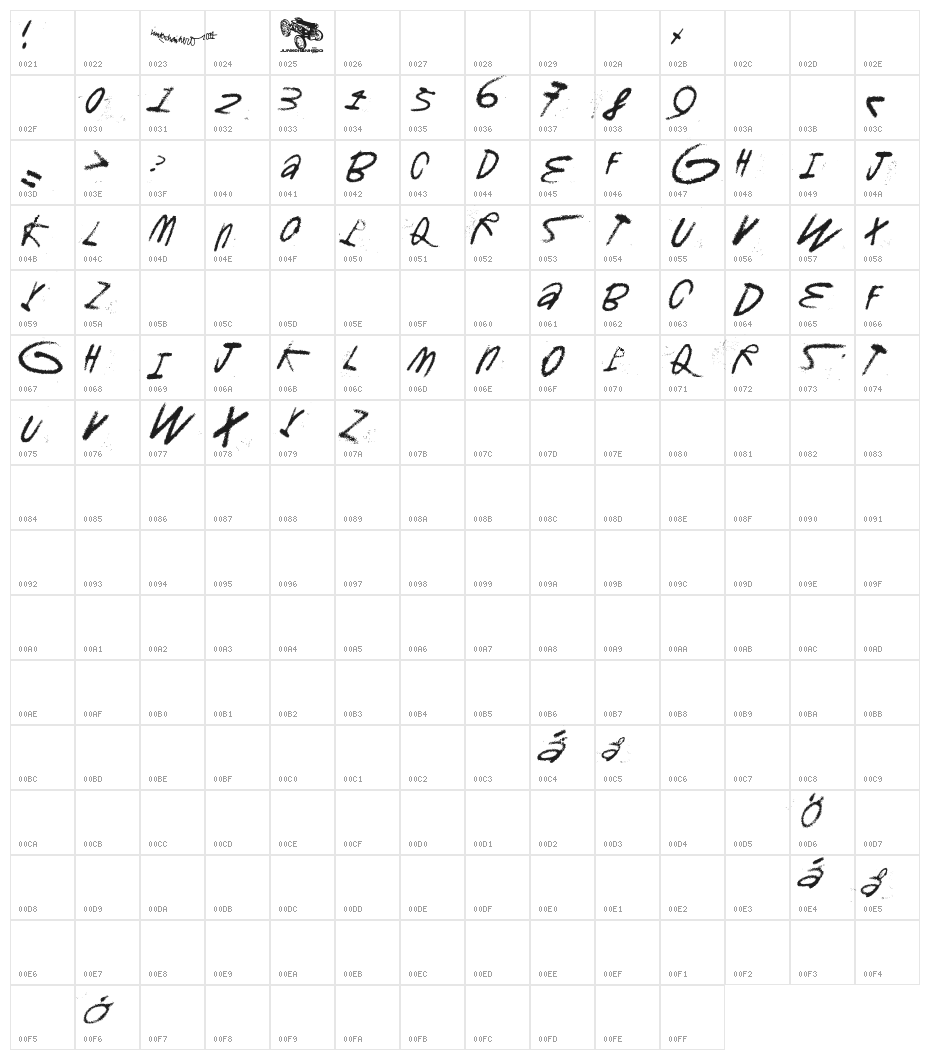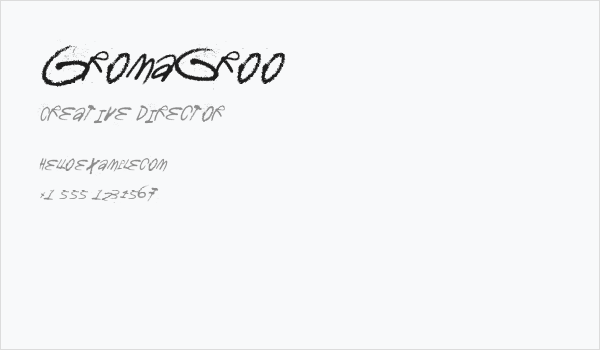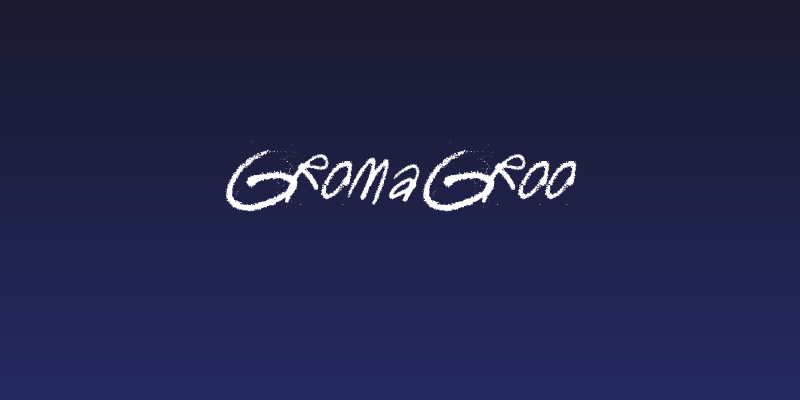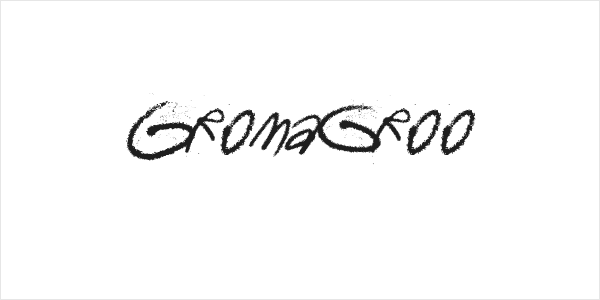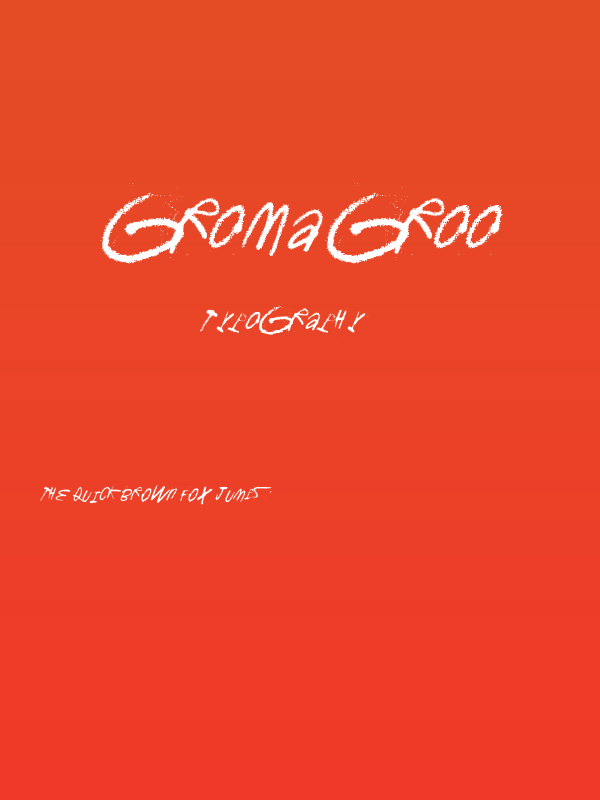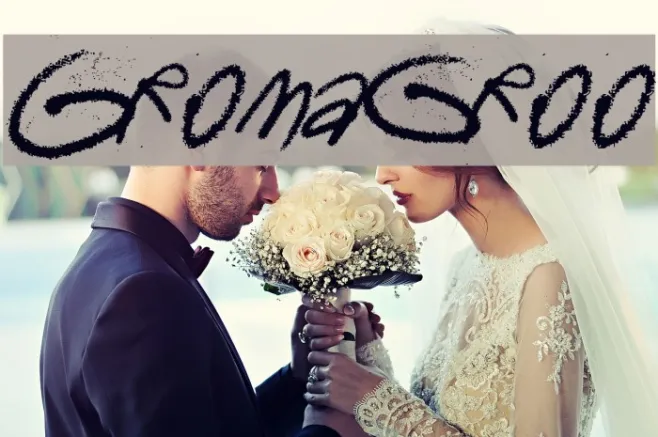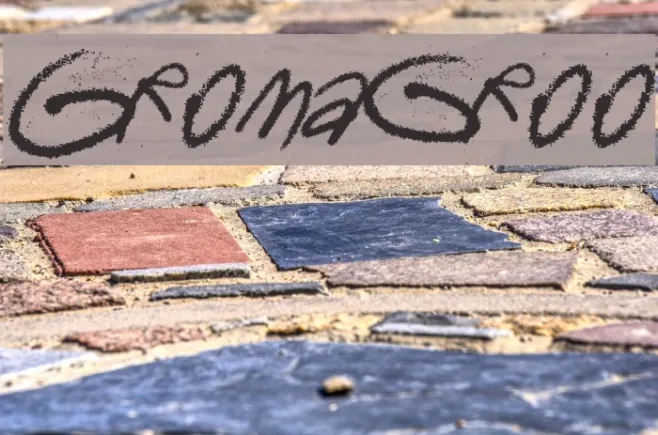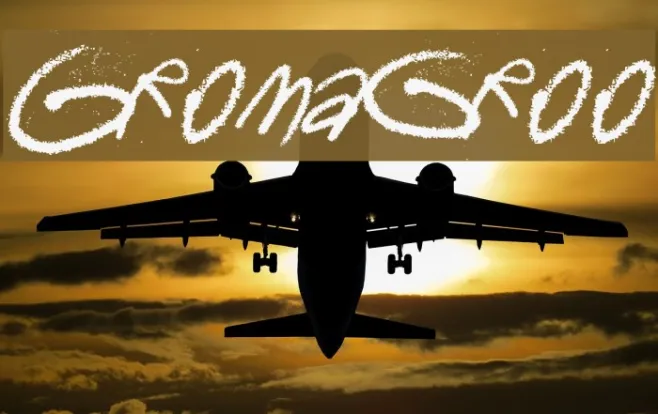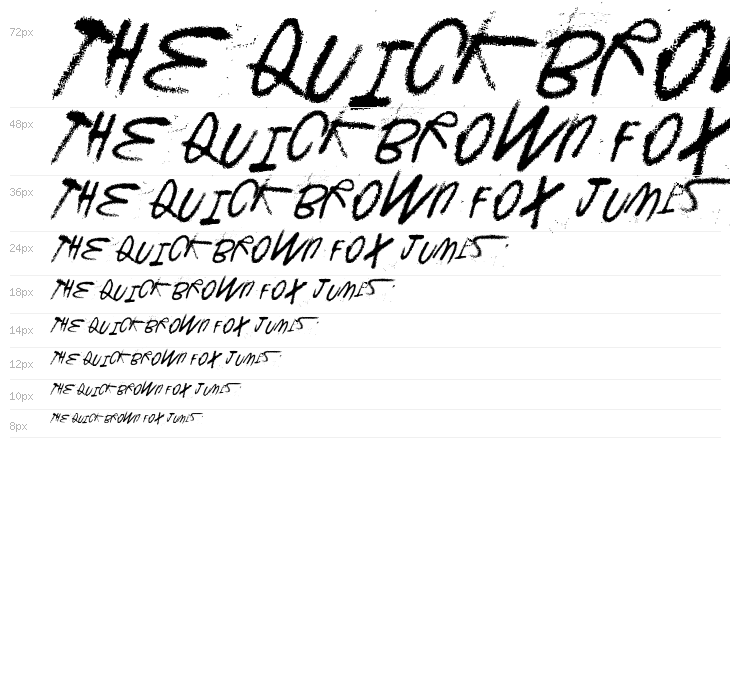
Gromagroo Font
Gromagroo Description
This font features a bold, expressive style with a hand-drawn appearance, characterized by its rough, textured strokes and dynamic, energetic forms. The letters are slightly slanted, giving a sense of movement and spontaneity. The uppercase and lowercase letters share a consistent style, with exaggerated curves and sharp angles that create a visually striking effect. The numbers and special characters maintain this aesthetic, adding to the font's overall cohesive look. This font's unique, artistic quality makes it stand out, offering a creative and unconventional approach to typography.
| Use Case | Logos, Posters, Artistic projects |
| Proposed Projects | Ideal for artistic projects, album covers, posters, or any design requiring a bold, expressive touch. |